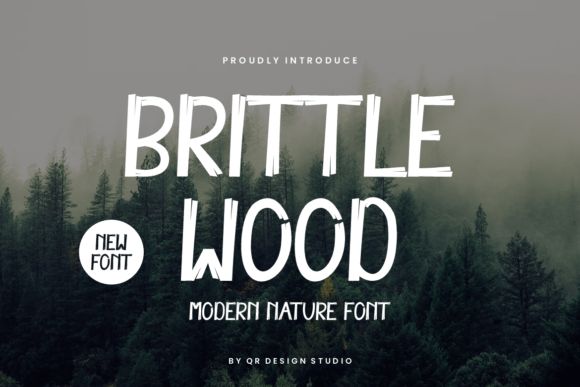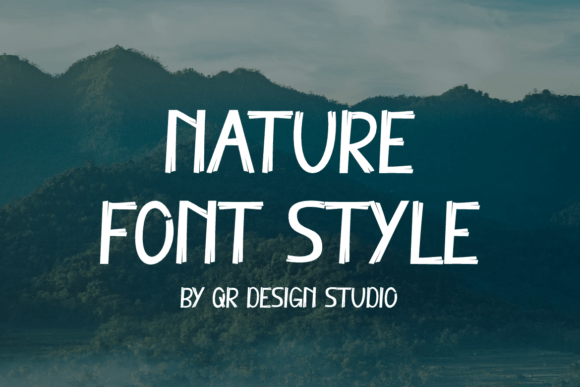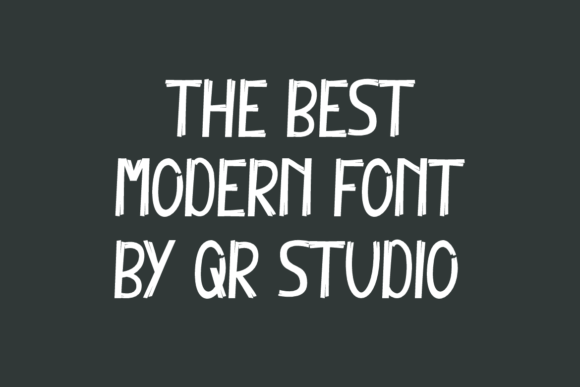
Brittle Wood Font: Rustic Display Font for Cricut & DIY Projects
About the Brittle Wood Font
The wait is over! The incredible Brittle Wood Font is now available for your design toolkit. Brittle Wood Font is a hand drawn and authentic display font. The font is suitable for any branding project like logo, sport, and many more.
Outstanding in a wide range of contexts.
Brittle Wood’s hand-drawn quality makes it ideal for headlines, short text blocks in posters or packaging, and logos needing a rustic, authentic feel. It excels in branding for craft breweries, outdoor gear companies, or artisanal food products. However, its irregularity makes it unsuitable for body text or UI elements requiring high readability. Avoid using it for lengthy paragraphs.
Its bold, slightly rugged personality pairs well with clean sans-serifs like Open Sans or Montserrat for a balanced contrast. For a more rustic pairing, consider a complementary serif like Playfair Display or Lora. A script font like Great Vibes could add a touch of vintage charm, but use sparingly to avoid visual clutter.
The font projects a robust, handcrafted image, ideal for brands emphasizing authenticity and a connection to natural materials.
Brittle Wood Font Usage Examples
Brittle Wood Font Example